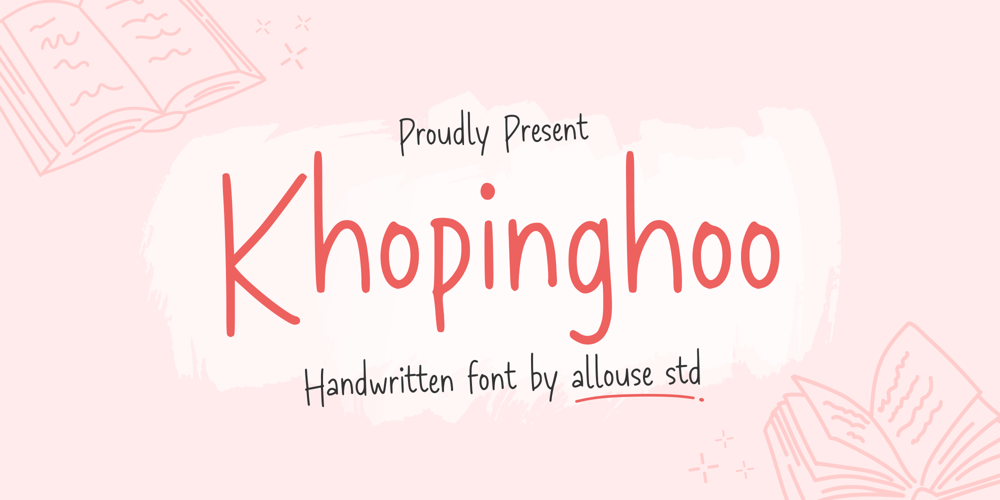
Khopinghoo Font Family was designed by Fachrizal Yusuf and published by Allouse Studio. Khopinghoo contains 1 styles and family package options. Proudly Present, Khopinghoo A Monoline Quirky Handwritten FontKhopinghoo is perfect for any titles, product packaging, branding project, megazine, social media, wedding, or just used to express words above the background.Khopinghoo also come with multilingual support.Enjoy the font, feel free to comment or feedback, send me PM or email.